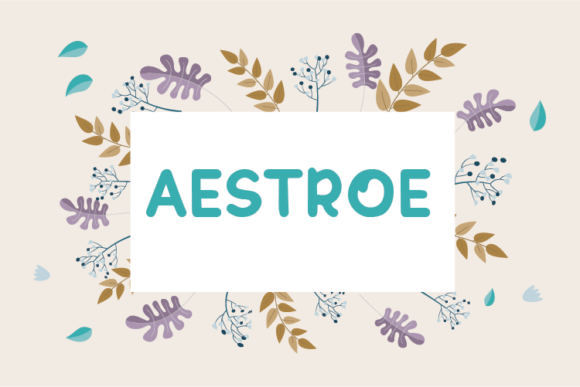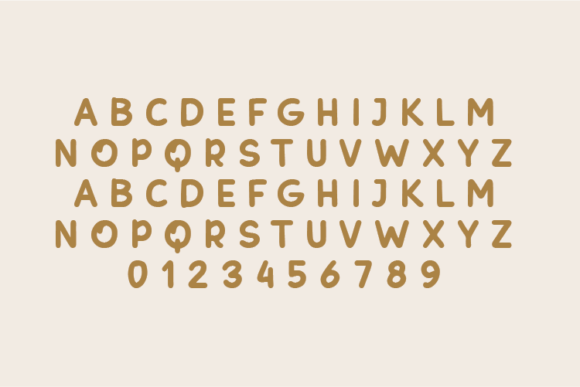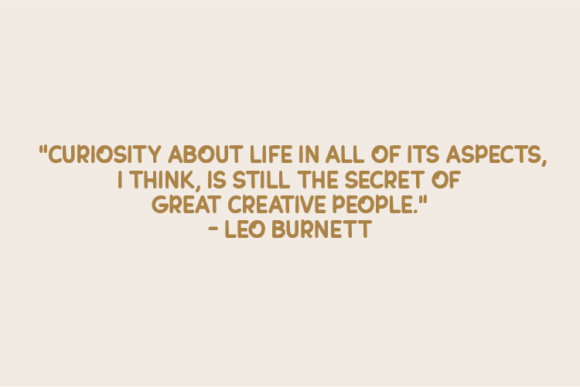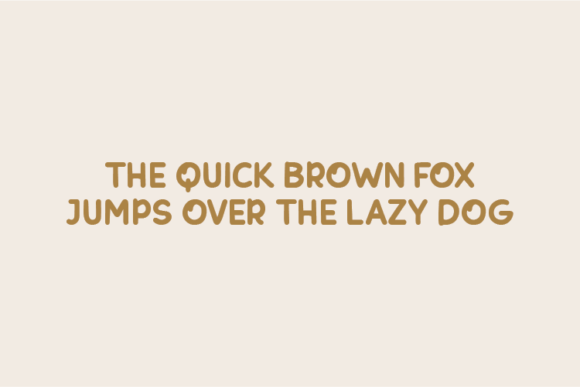
Aestroe Font
About Aestroe Font
Introducing Aestroe, a distinctive handwritten font crafted with a commitment to maintaining the authenticity of each character’s original indentation. What sets Aestroe apart is its natural and unaltered design—no nodes have been manipulated, resulting in a font that is both intriguing and truly unique. This font is tailor-made for a variety of creative applications, especially excelling in quotes, notes, tees, and product designs.
Aestroe’s charm lies in its authenticity. Every stroke and curve retains the organic essence of hand lettering, creating a visually appealing and genuine aesthetic. The untouched nodes contribute to the font’s distinctive character, making it stand out in a world of digitally manipulated typefaces.
Quotes come to life with Aestroe, as the font lends a natural and human touch to each written expression. Whether you’re designing inspirational graphics or crafting motivational prints, Aestroe’s unaltered design adds a layer of sincerity and uniqueness to your quoted content.
Taking notes becomes a creative endeavor with Aestroe. The font’s natural handwriting style adds a personal and warm touch to any text, making your notes more engaging and visually interesting. Whether for digital or print applications, Aestroe transforms mundane notes into visually appealing content.
When it comes to apparel, Aestroe shines on tees and other merchandise. Its natural and unmodified appearance adds an authentic and artisanal quality to your designs. Aestroe ensures that your apparel stands out with a genuinely crafted look, creating a connection with those who appreciate the beauty of untouched design.
Product designs are elevated with the inclusion of Aestroe. Whether you’re working on packaging, labels, or any other design element, the font’s natural handwritten style brings a touch of originality to your products. Aestroe stands as a testament to the artistry of handmade aesthetics in the digital age.
In essence, Aestroe isn’t just a font; it’s a celebration of the beauty found in the untouched intricacies of handwritten characters. Its natural and unaltered design makes it a perfect choice for creative projects that demand authenticity, such as quotes, notes, tees, and product designs. With Aestroe, you’re not just adding a font to your toolkit; you’re infusing your work with the genuine charm of untouched craftsmanship.